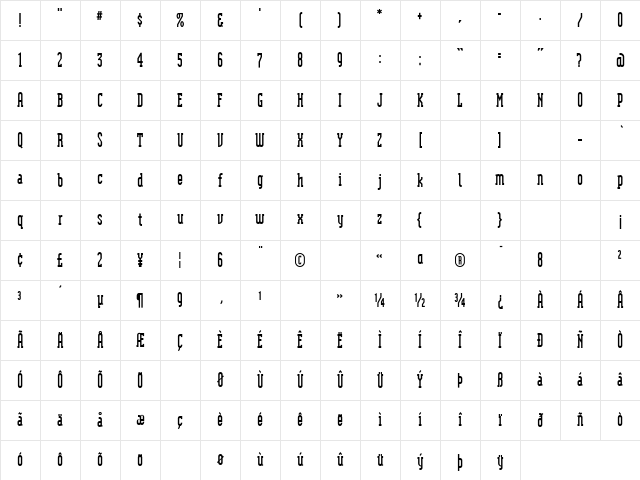
ModularSerifBold carries the refined structure of traditional serif typography, with bracketed terminals and considered proportions that communicate credibility and craft. Its bold stroke weight gives it real presence on the page.